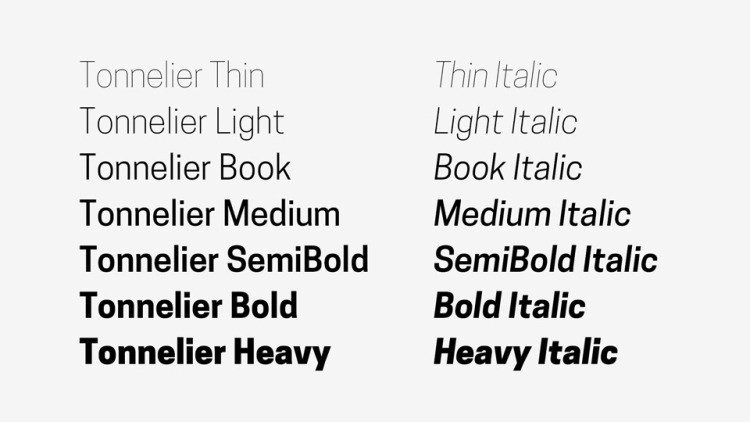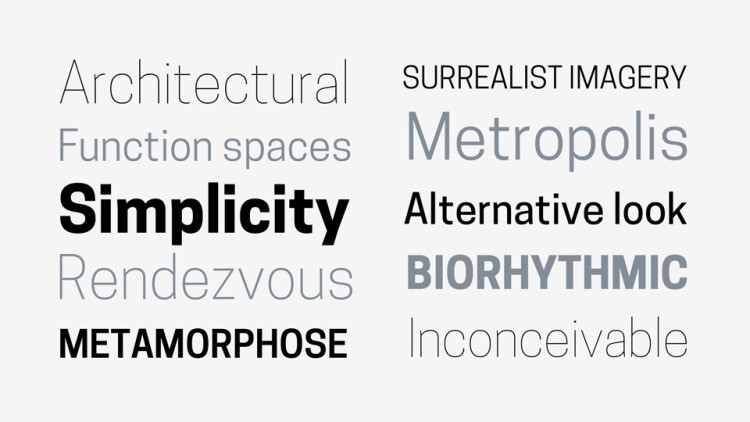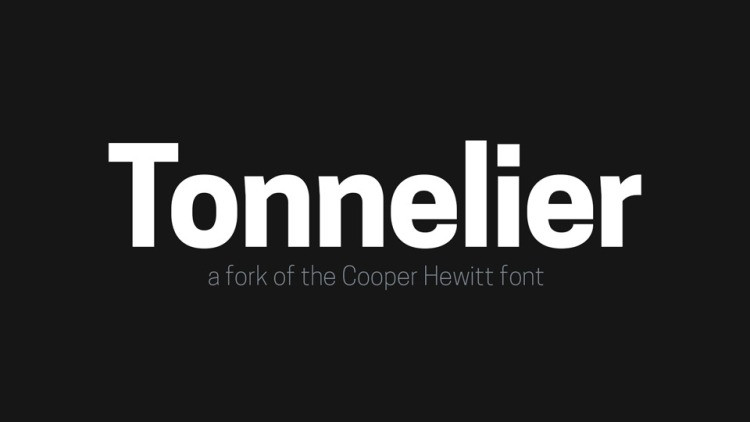
Tonnelier Font
Grab our new font Tonnelier Sans Serif Font is a contemporary sans serif typeface with characters composed of modified-geometric curves and arches. It’s a fork of the Cooper Hewitt font, designed by Chester Jenkins for the Cooper Hewitt Smithsonian Design Museum. Tonnelier is French for Cooper.